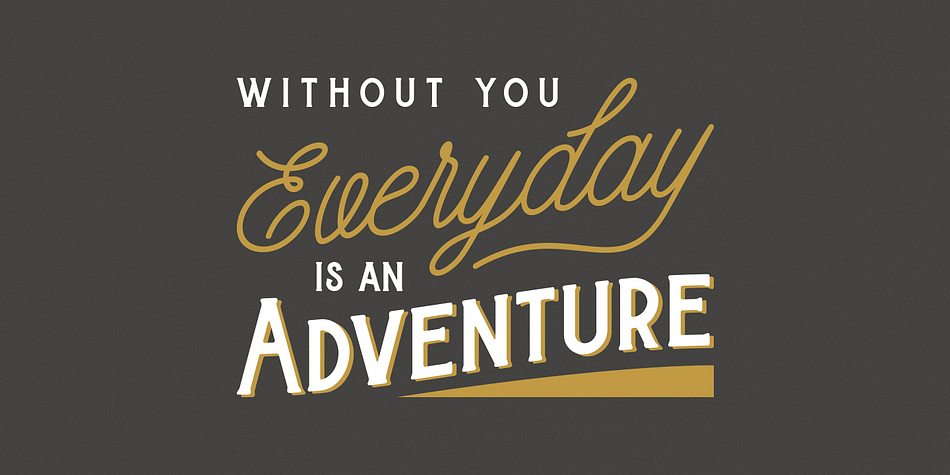
Burtons
Designed by Angga Mahardika, Burtons is a script and display serif font family. This typeface has two styles and was published by Try&Error Studio.
Burtons is a new display font with cool characters. It’s a delightful font duo, serif and script perfect for headlines, logotypes, signs, posters, greeting card, letterhead, t-shirt, and many more.
Foundry Angga Mahardika
Styles Display Serif, Script
Designer Angga Mahardika